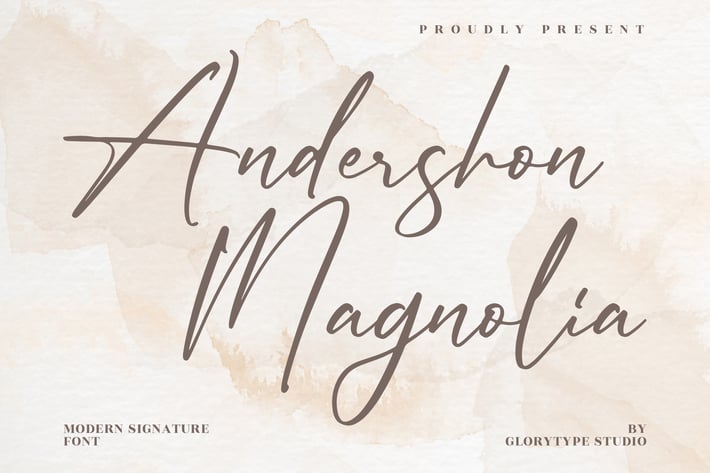
Anderson Magnolia Modern Signature Font
Andershon Magnolia is a refined modern signature font designed to bring a sense of softness and sophistication to your work. With its natural handwritten flow and delicate letterforms, it embodies effortless elegance — perfect for projects that aim to feel personal, timeless, and professional.
Modern handwritten signature style
Elegant curves with natural stroke flow
Balanced for both print and digital layouts
Branding and logo design
Invitations and stationery
Beauty, fashion, and lifestyle projects
Social media posts and visual quotes
* Product packaging and promotional materials
Effortlessly chic — Andershon Magnolia captures elegance in every curve.